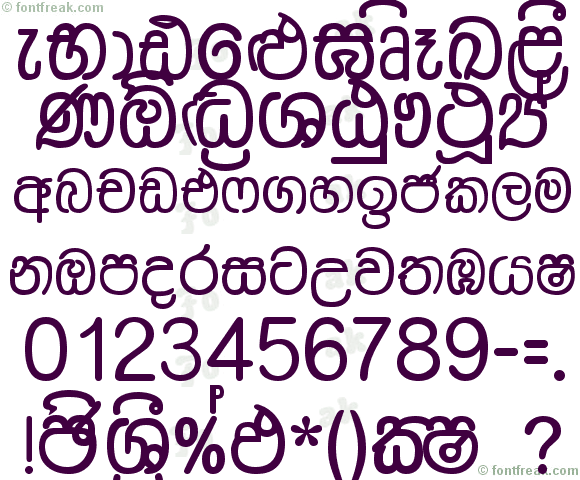
Dusharnbi
About Dusharnbi
Dusharnbi, designed by Greywolf Webworks, is a striking display font that stands out for its unique blend of creativity and readability. As a freeware typeface, it offers an excellent opportunity for designers looking to enhance their projects without any licensing fees. This font is characterized by bold, rounded strokes that give it a contemporary yet approachable feel. The moderate contrast in stroke weight adds an engaging visual dynamic, making it suitable for various design applications.
The spacing in Dusharnbi is well-balanced, allowing for clear legibility even at smaller sizes. Its decorative flourishes add a touch of personality, making it perfect for use in creative contexts. This font shines in areas such as wedding invitations, where its inviting aesthetic can set the tone for a special occasion. Additionally, it works well for movie posters, capturing attention with its bold presence. Restaurant menus can benefit from Dusharnbi’s unique style, helping to create an inviting ambiance that draws customers in. Content creators will also find this font ideal for social media graphics, where eye-catching visuals are key to engagement.
Targeted at graphic designers, small business owners, and content creators, Dusharnbi offers a versatile solution for a variety of projects. Its ability to convey a sense of warmth and creativity while maintaining clarity makes it a valuable asset in any designer’s toolkit.
In conclusion, Dusharnbi font free download presents a unique opportunity for those looking to infuse their designs with personality and flair. Whether for print or digital use, this font's distinctive style and functionality make it a standout choice for anyone wanting to make an impact in their creative endeavors.